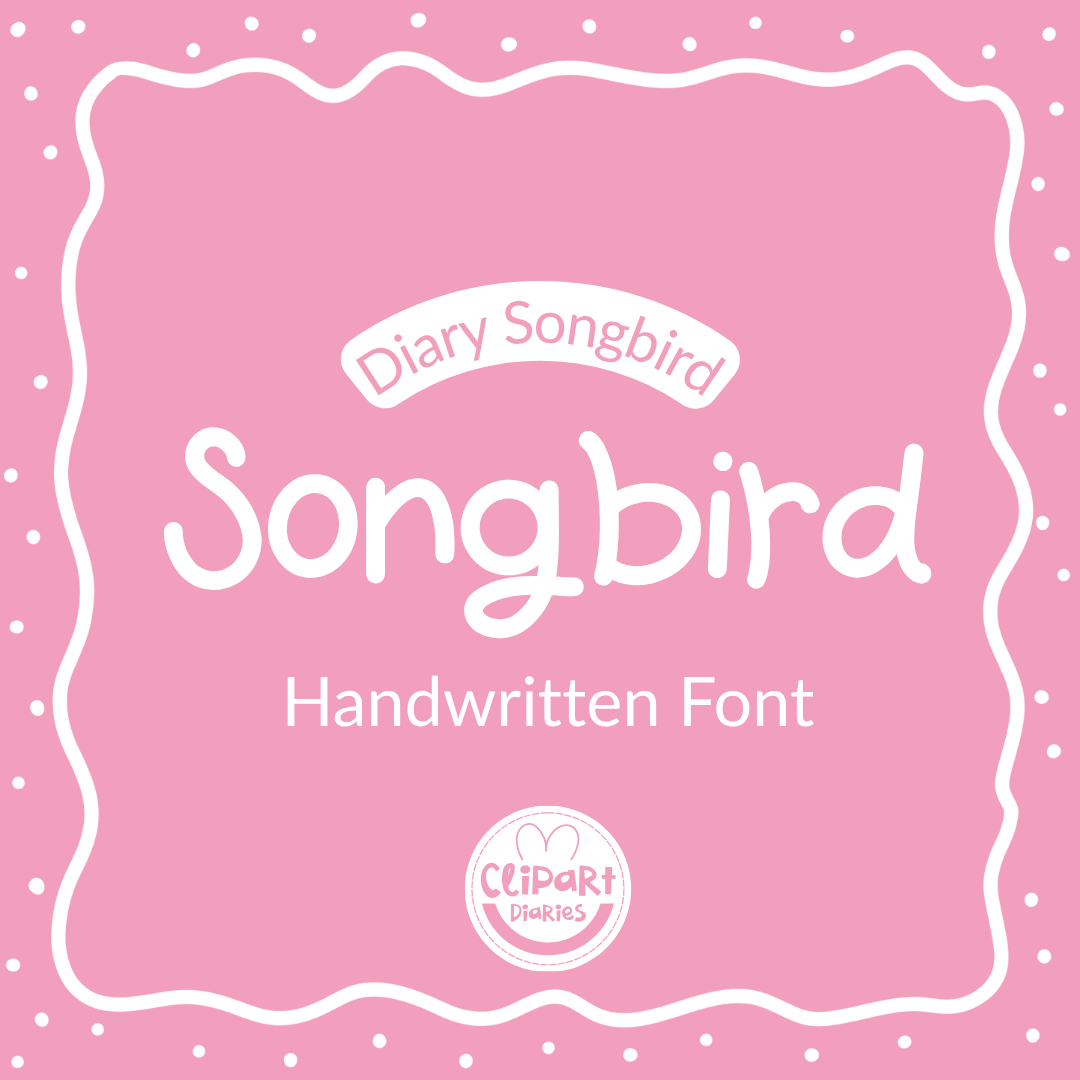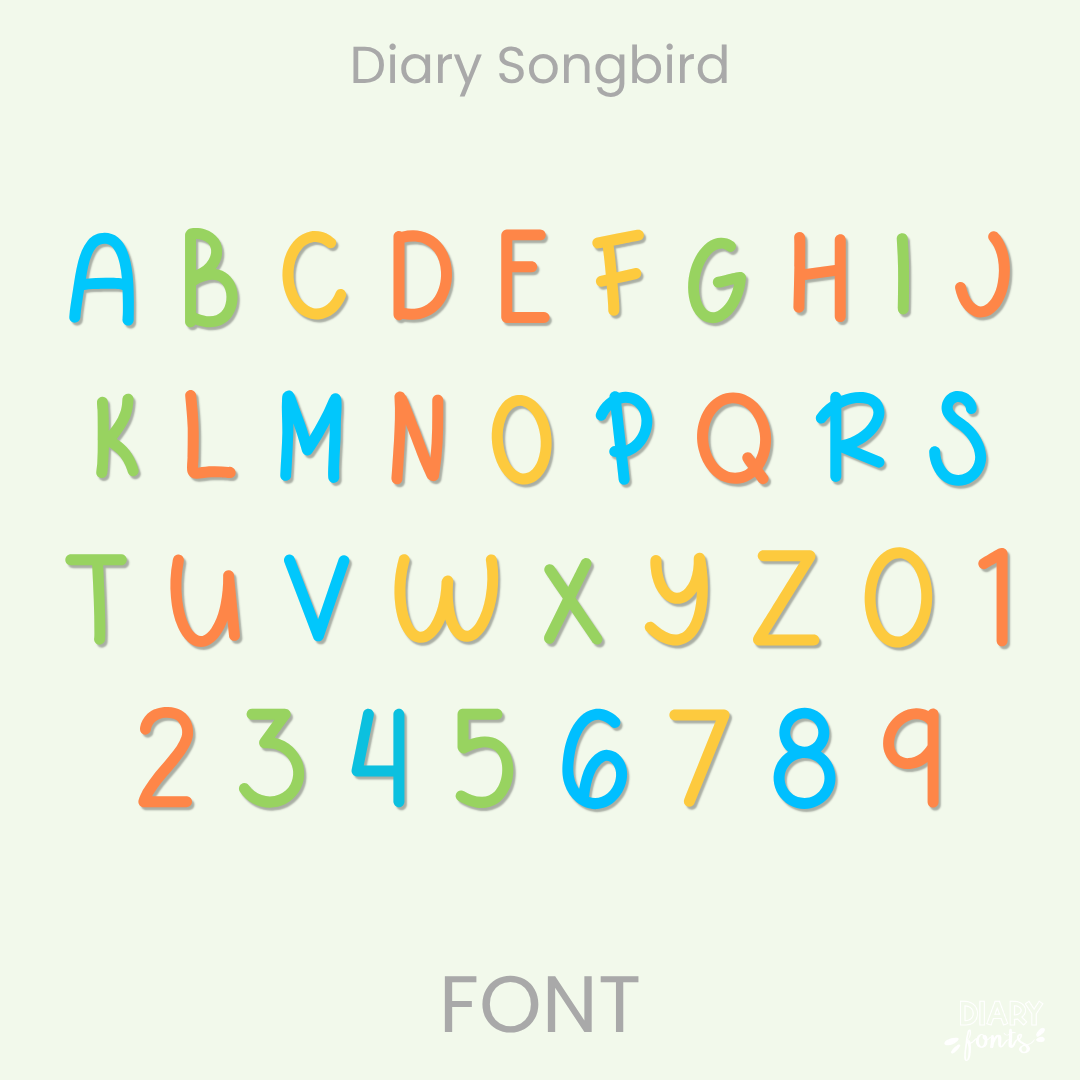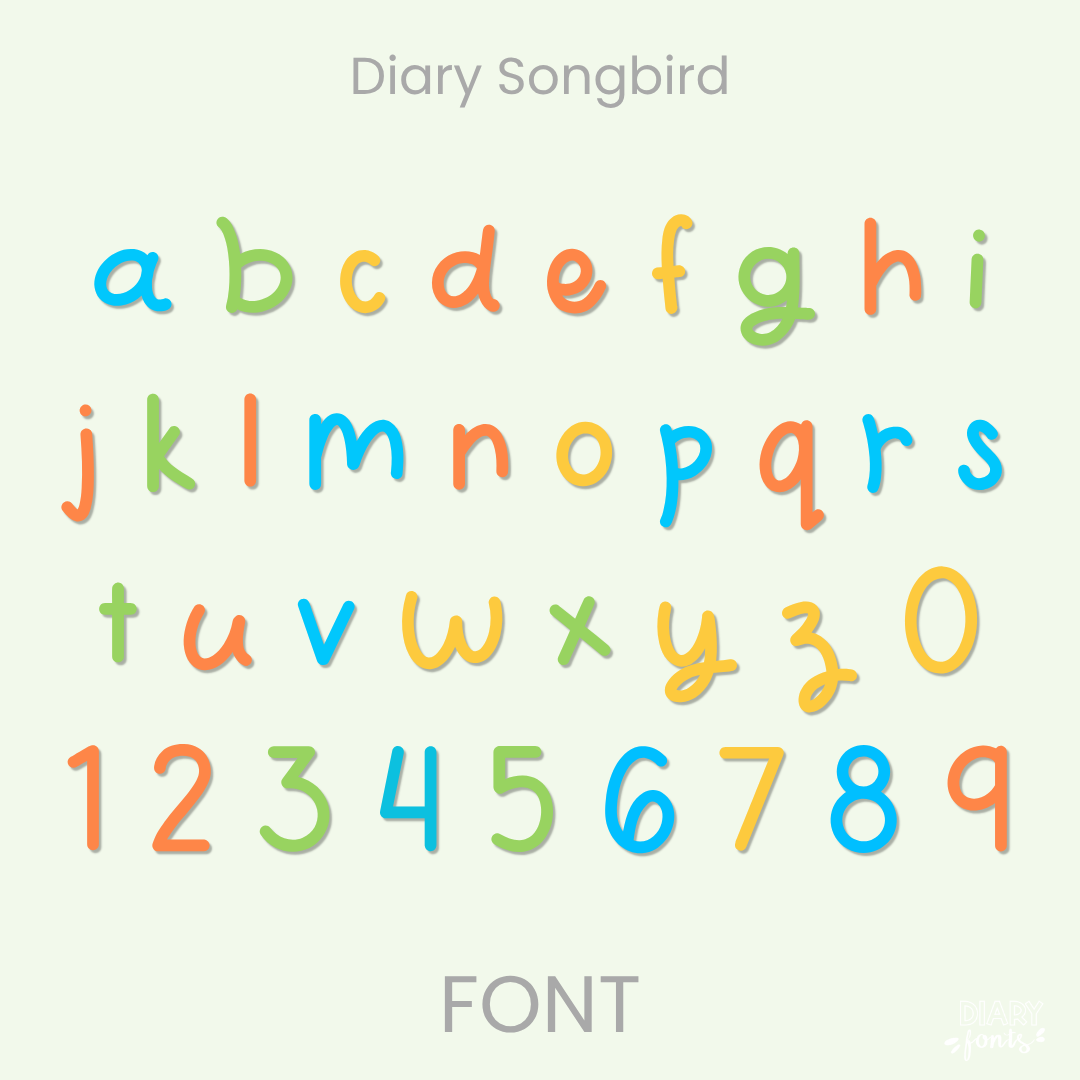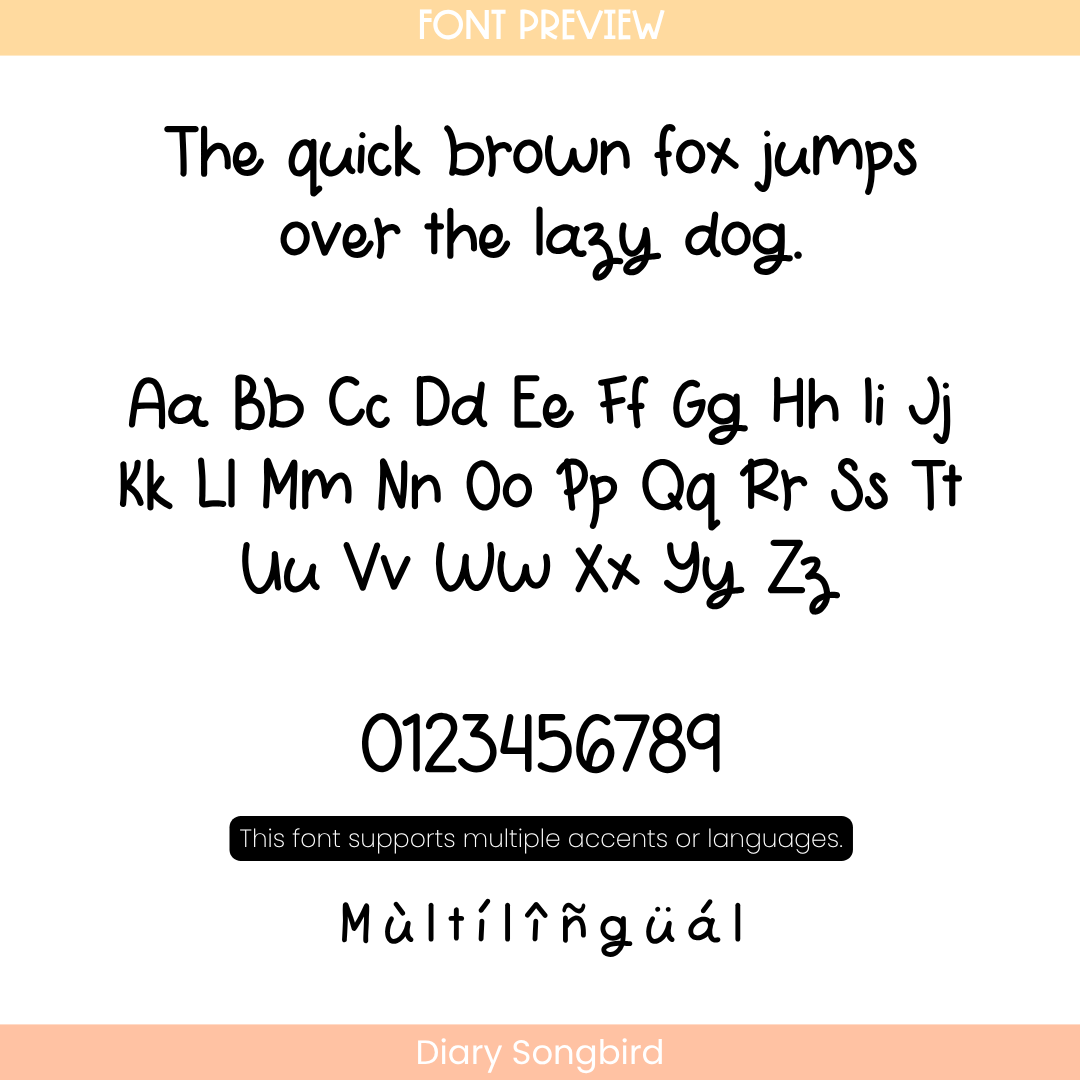
If you’ve been looking for a go-to handwritten font that has all the charm of a sweet, joyful handwriting style but keeps your layouts looking incredibly tidy, Diary Songbird is about to become your new absolute favorite. It features a beautifully clear, upright character structure with clean, uniform lines and subtle playful curves that sit perfectly grounded along the baseline. Because these hand-drawn letters have plenty of generous breathing room between them, it completely eliminates visual clutter, making it an exceptionally clear and legible worksheet typography choice for your sweet students.
It is the absolute perfect choice for typing up daily reading passages, elementary school worksheets, weekly spelling lists, and clean instructional slide fonts where clear legibility is your top priority. Inside the download, you’ll get a full set of neat uppercase and lowercase letters, matching numbers, and multi-accent marks for complete multilingual support. It drops right into Canva, MS Office, or Adobe on your desktop, and pairs beautifully with Procreate and GoodNotes on your iPad. Whether you’re prepping daily activities for your own sweet classroom or designing fresh new commercial-use educational resources for your online teacher shop, this cheerful display print font adds a touch of confident, friendly style to your creative toolkit.